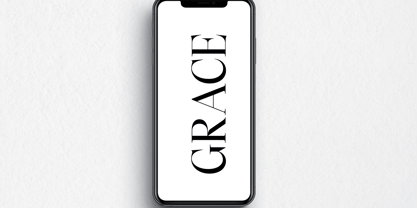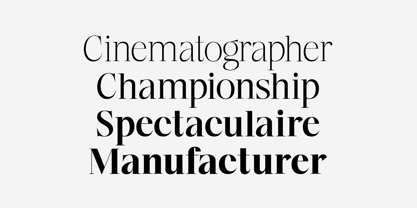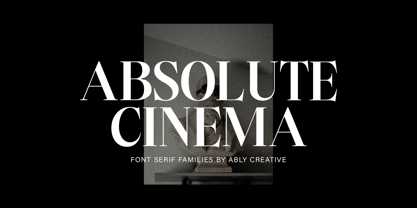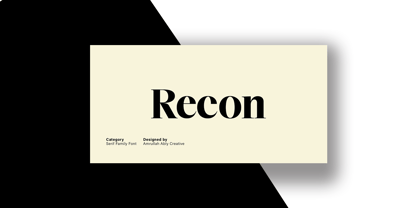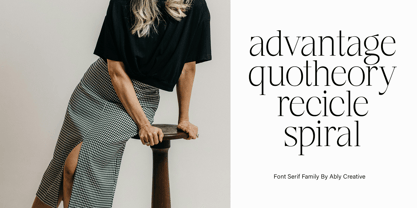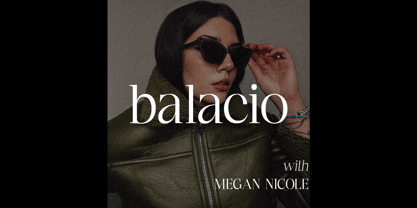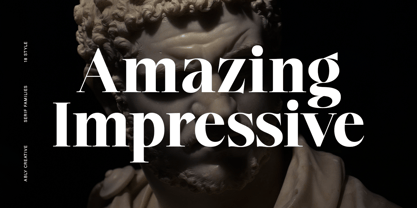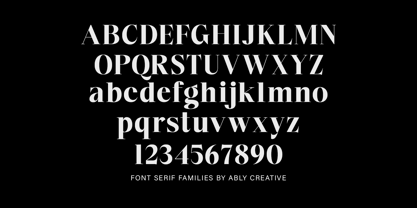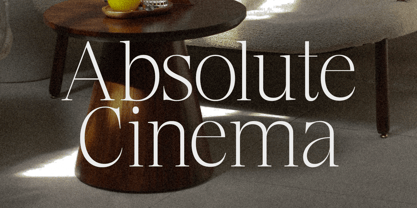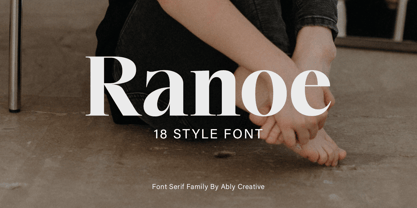
Ranoe family
by Ably Creative
The Ranoe family Font Family was designed by Amrullah Medan, Amrullah and published by Ably Creative. Ranoe family contains 18 styles and family package options. More about this family
First designed in 2025, Ranoe family font is a clean and fresh letter system, with measured geometry, yet conservative enough for brochure and newspaper settings. The complete Ranoe family font contains 18 styles, with stunning Symbols designed specifically for brochures, newspapers, magazines Posters, a bolder, elegant and attractive version in three styles for your Logo and identity, containing 232 glyphs with the best serif styles of the year.
Designers: Amrullah Medan, Amrullah
Foundry: Ably Creative